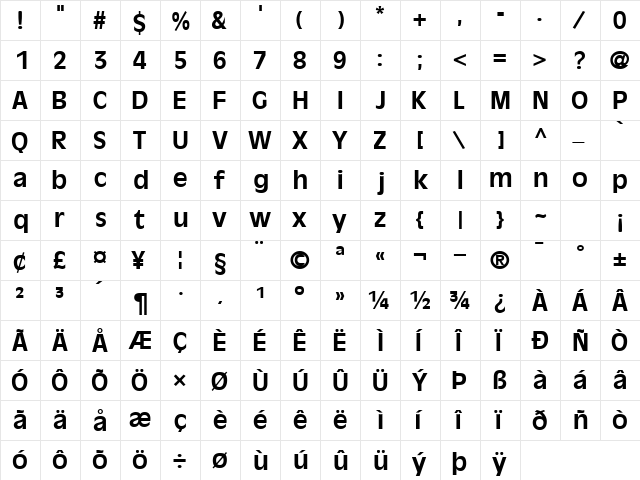
DecadeSSK Bold
Design Context for DecadeSSK Typeface
DecadeSSK is a composed and adaptable typeface that performs quietly and consistently across a wide range of design contexts. Its bold stroke weight gives it real presence on the page.